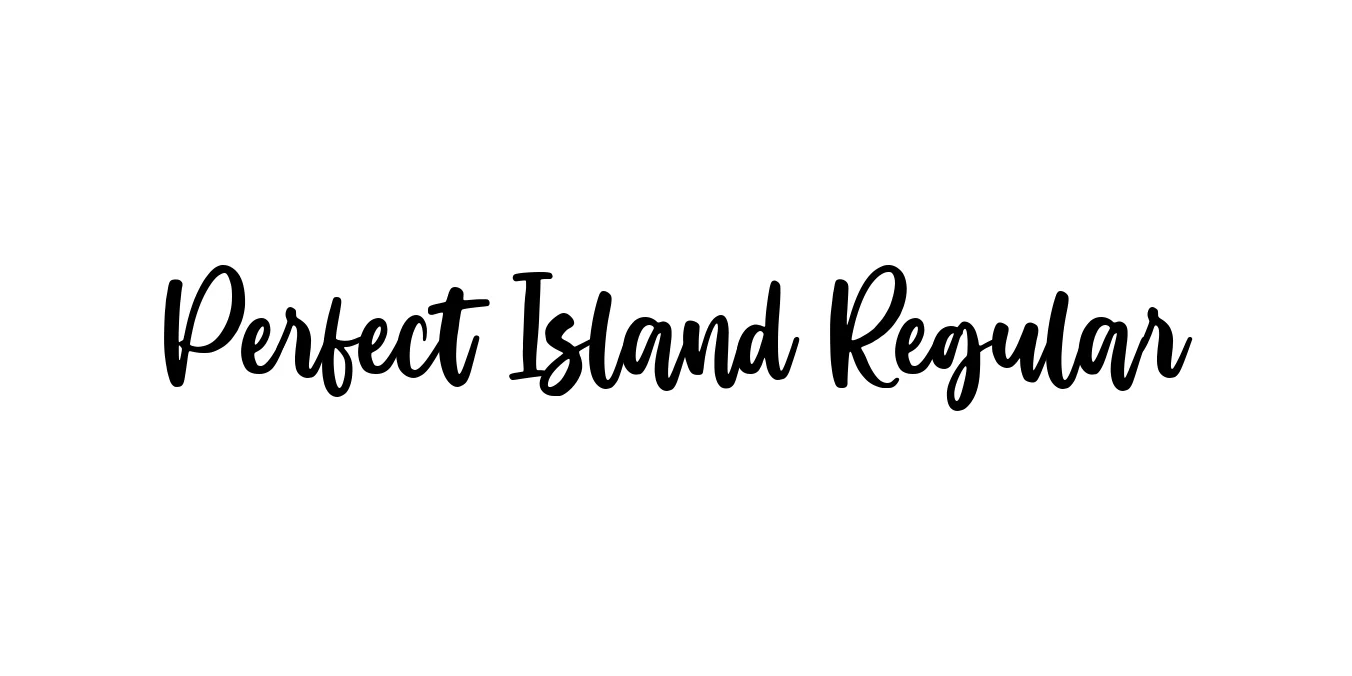
Perfect Island Regular
Perfect Island Regular is a sophisticated and modern script typeface designed by Letterena Studios. It features fluid, rhythmic strokes that emulate natural handwriting, providing a sense of elegance and organic charm to any creative composition. This font is highly regarded for its smooth ligatures and balanced character spacing, which ensures high readability while maintaining an artistic, hand-crafted aesthetic.
The typeface was developed to meet the growing demand for contemporary calligraphy in the digital age. It has since become a popular choice for high-end branding, fashion editorials, and luxury packaging. Its versatile nature allows it to transition seamlessly between formal applications and more casual, personal projects, making Perfect Island Regular a staple for designers looking for a signature touch.
Perfect Island Regular Best Uses
Ideal for invitations, RSVP cards, and place settings due to its romantic and fluid feel.
Perfect for creating memorable logos and business cards in the fashion, beauty, or lifestyle sectors.
Excellent for quote graphics, Instagram stories, and stylish overlays that require a personal touch.
Well-suited for magazine headings and pull quotes that need a sophisticated handwritten look.